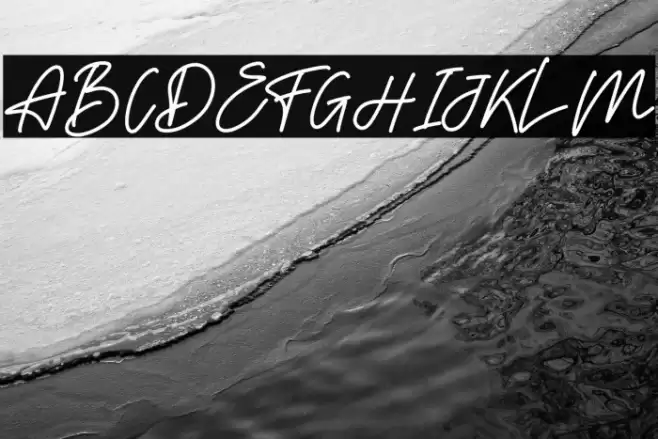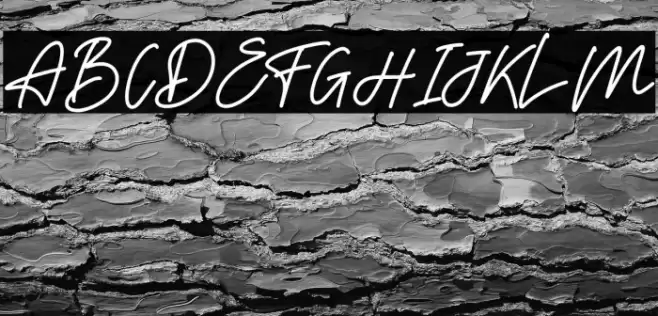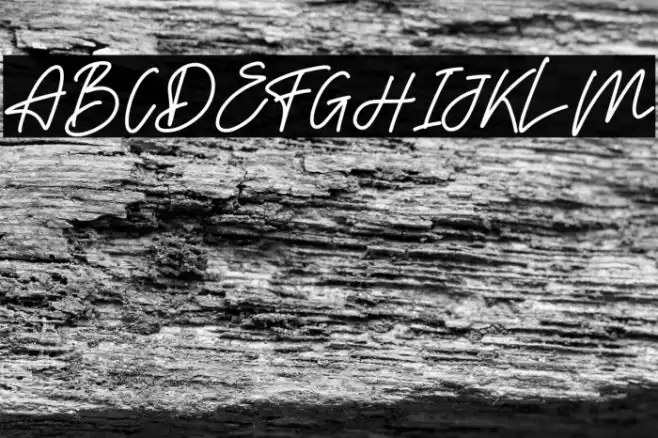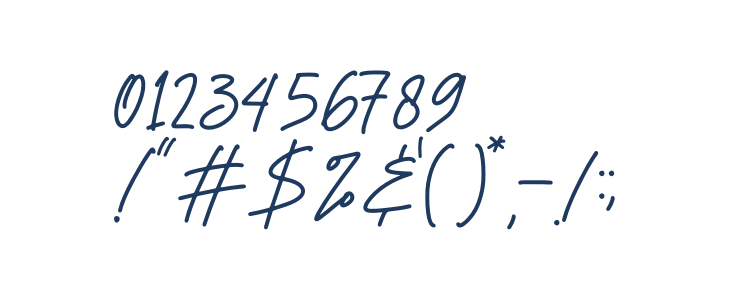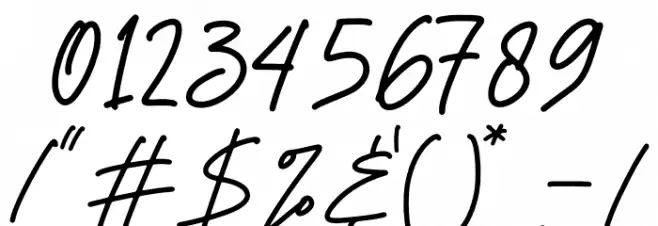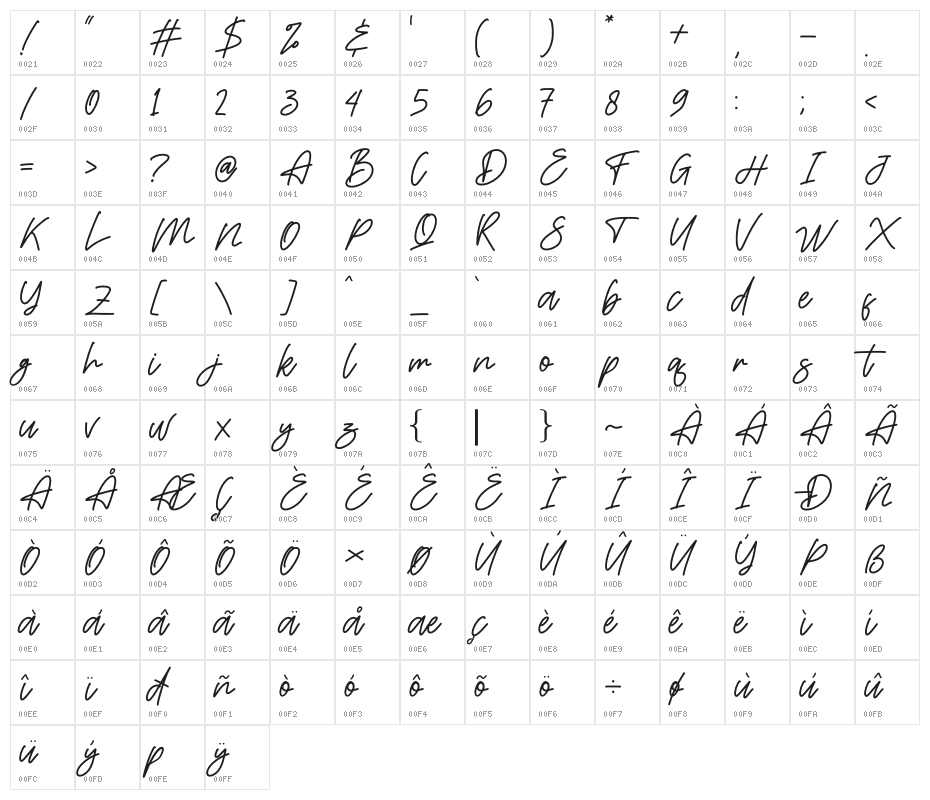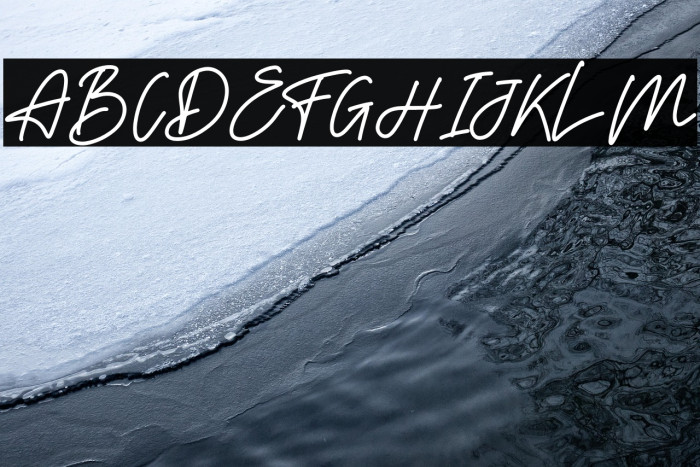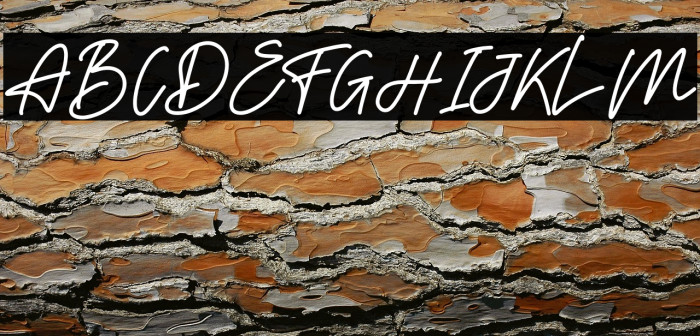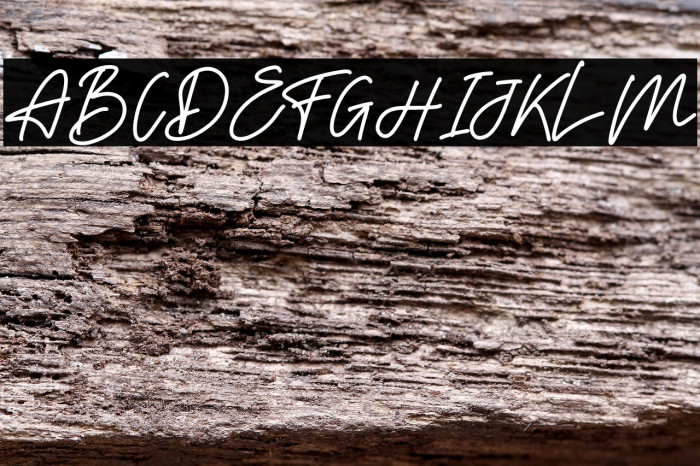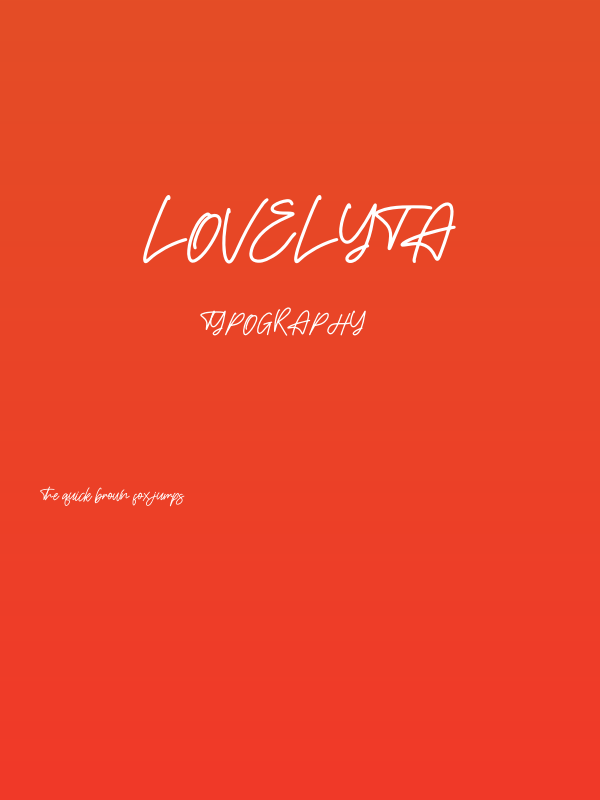
Lovelyta Font
Lovelyta Description
This font exudes a casual and dynamic handwritten style, characterized by its fluid and natural strokes. The letters are slightly slanted, giving a sense of motion and informality. The uppercase and lowercase letters maintain a consistent style, with smooth curves and a personal touch that mimics natural handwriting. The numbers and special characters follow the same aesthetic, ensuring uniformity across all glyphs. The overall appearance is lively and expressive, suitable for projects that require a personal or informal tone.
A casual, dynamic handwritten font with fluid strokes and a personal touch from Uncategorized fonts.
- Font: Lovelyta
- Proposed Projects: Ideal for personal invitations, greeting cards, social media graphics, and branding projects that require a personal touch.
- Overall Style: Casual
- Use Case: Logos, Invitations, Social Media Graphics